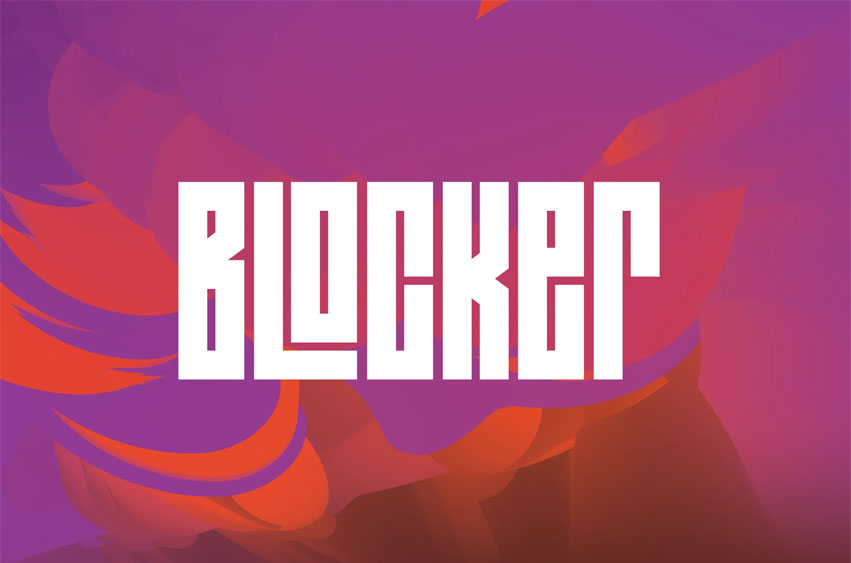
Blocker Font
Blocker Font One Extremely Blocky Font ideal for all sort of things like logos, motion graphics, posters and more!
4 weights with alternate glyphs and ligatures